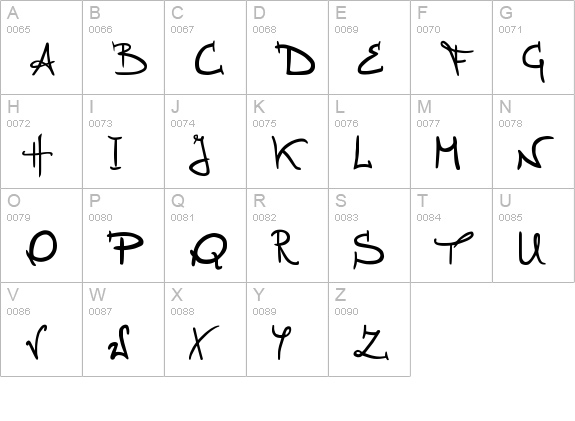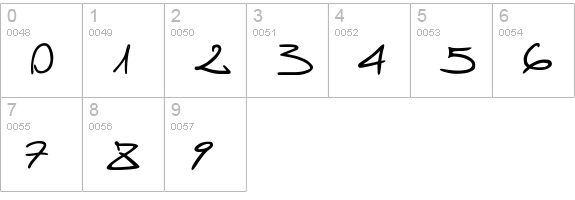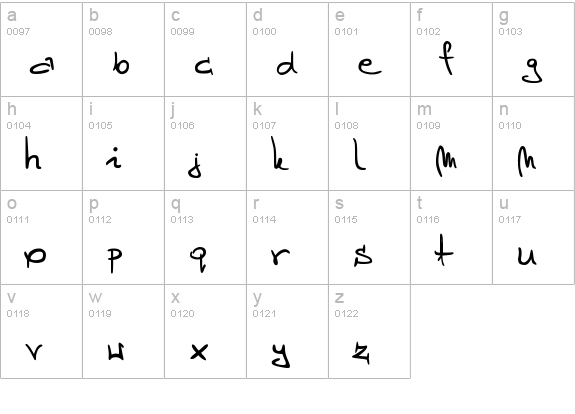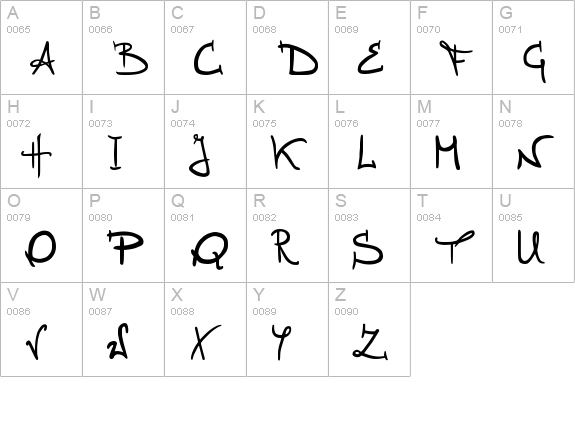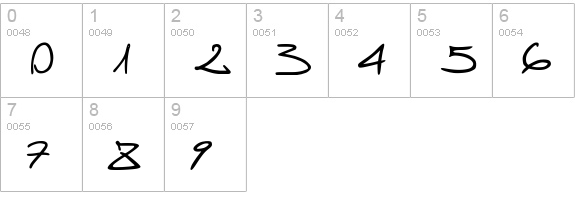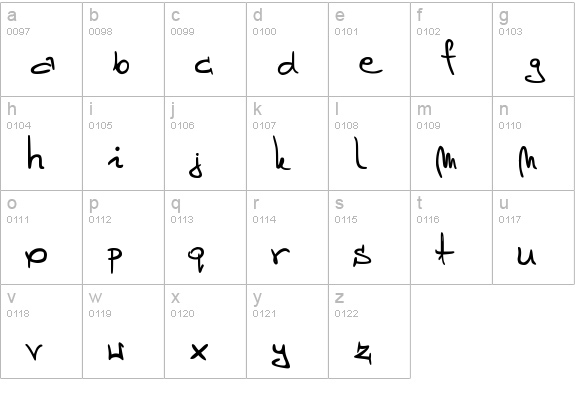
Stellina font is a charming and elegant typeface that exudes sophistication and style. With its graceful curves and delicate serifs, Stellina is perfect for adding a touch of class to any design project. Whether you're creating invitations, logos, or branding materials, this versatile font is sure to make a lasting impression. The best part? Stellina font is completely free to download at FontsMarket.com. You can easily access this stunning typeface and elevate your designs without breaking the bank. Don't miss out on the opportunity to enhance your creative projects with the timeless beauty of Stellina font - download it today and see the difference it can make!